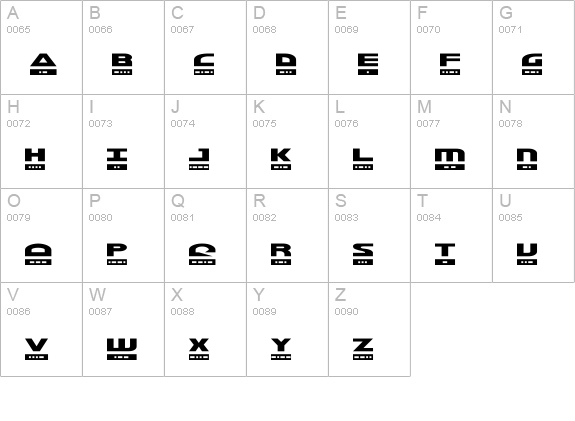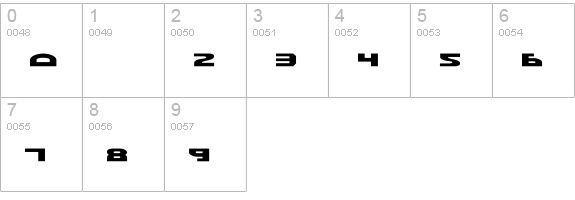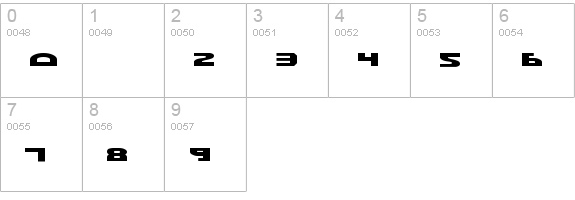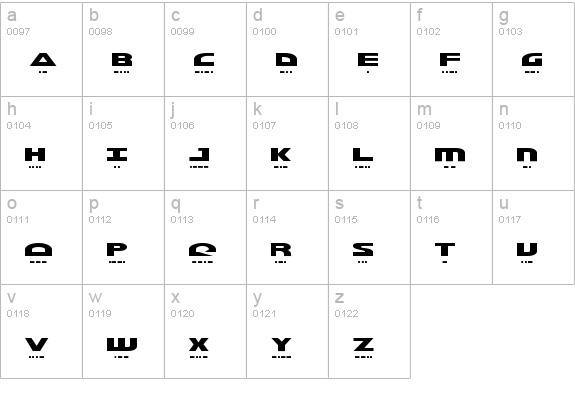
The Morse Kode font is a captivating and innovative typeface inspired by the timeless Morse code communication system. Designed with precision and attention to detail, this unique font beautifully captures the essence of Morse code with its intricate dots and dashes. Whether you're looking to add a touch of nostalgia or a modern twist to your design projects, Morse Kode font is the perfect choice. Best of all, Morse Kode font is available for free download at FontsMarket.com. Embrace the art of communication with this striking and versatile typeface that is sure to make a lasting impression on any project. Download Morse Kode font today and explore the endless possibilities of this remarkable font.